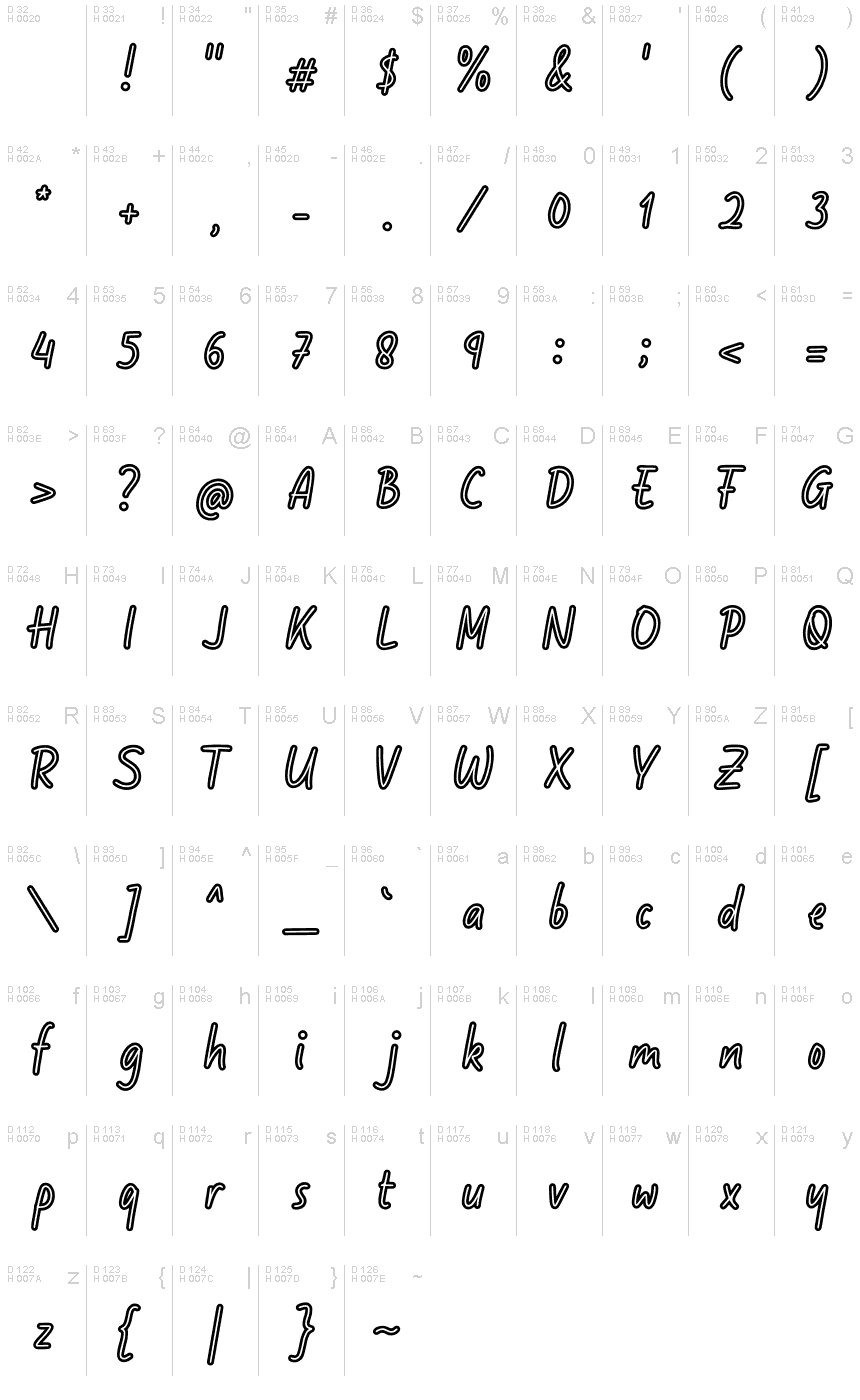
Holykadot
Holykadot, designed by Allouse Studio, is a captivating handwritten inline font. With its semi-light weight, this font exudes an effortless charm and brings a touch of elegance to any project. Perfect for wedding invitations, greeting cards, or even branding materials, Holykadot adds a unique and personal feel to your designs. Its playful yet refined style suits a wide range of projects – from whimsical children's books to sophisticated fashion magazines. Let Holykadot be the enchanting companion that breathes life into your creative endeavors.